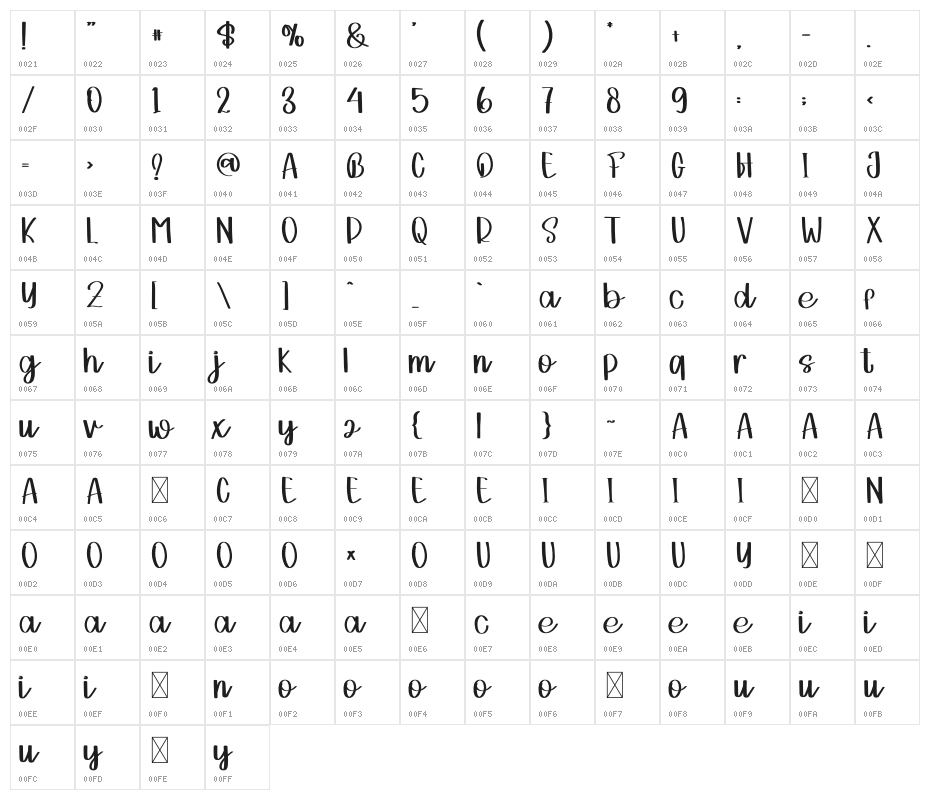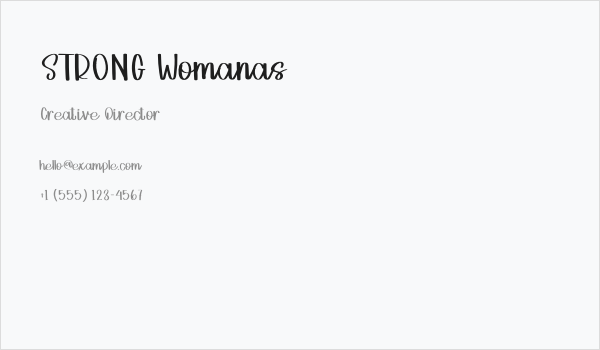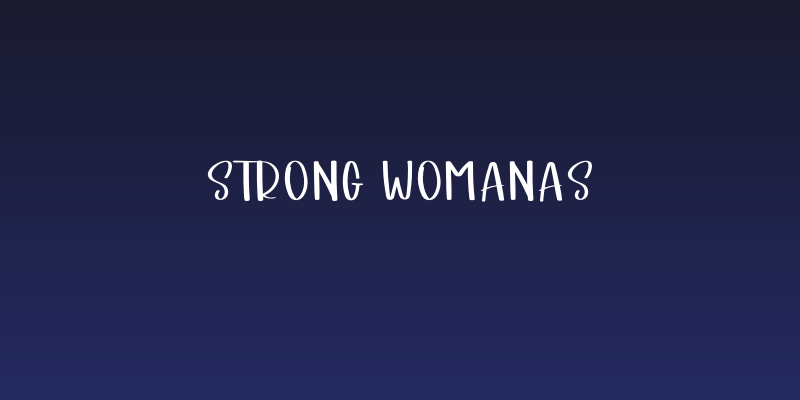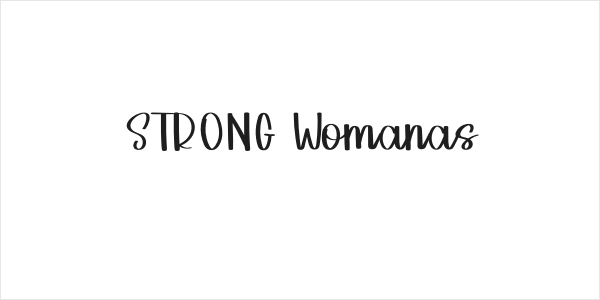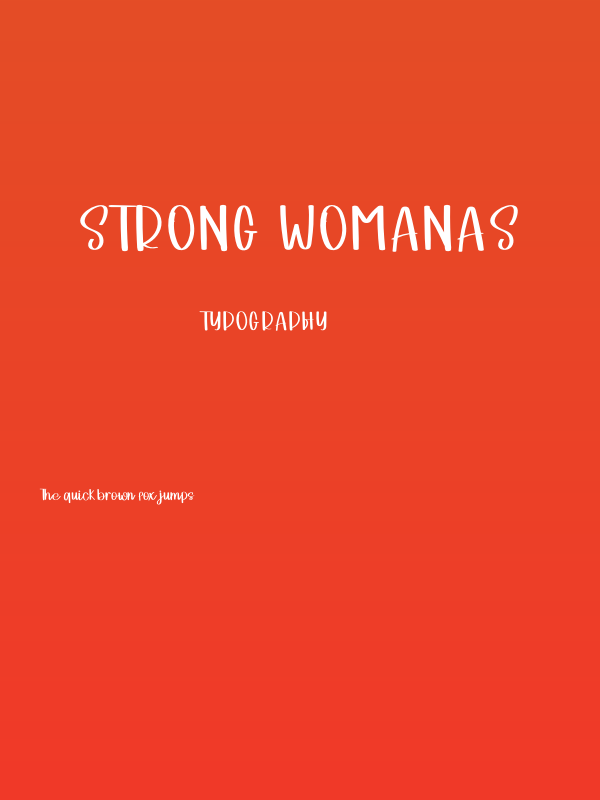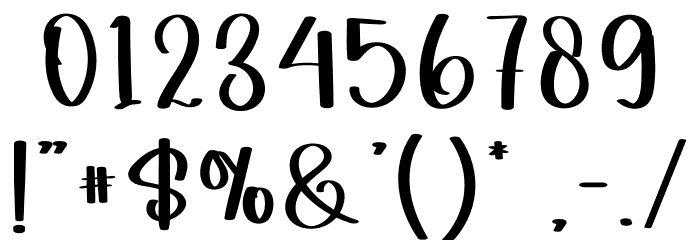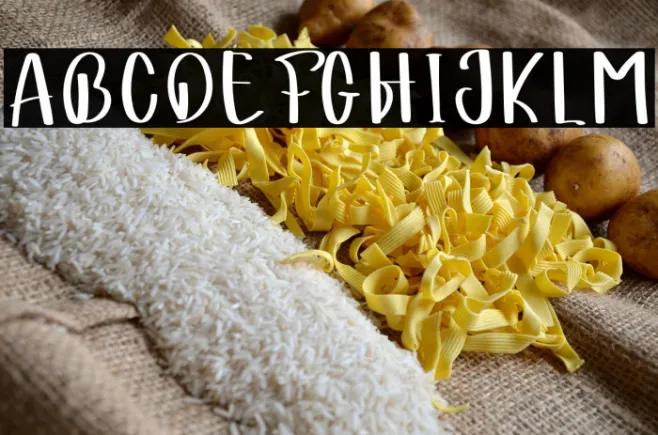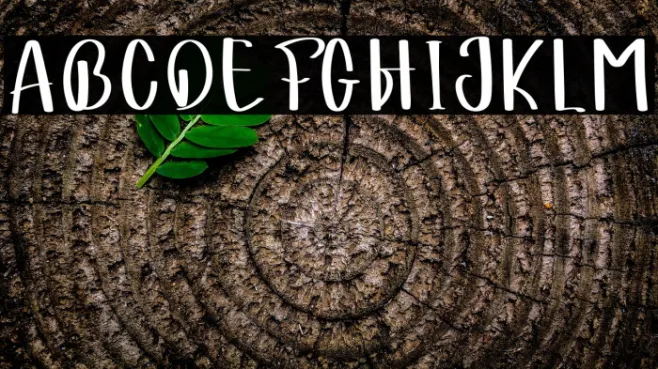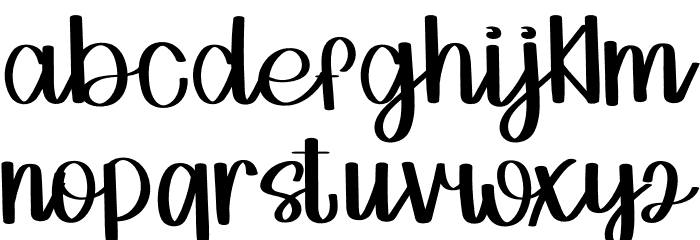
STRONG Womanas Font
STRONG Womanas Description
This font features a playful and energetic script style with a hand-drawn appearance. The uppercase letters are bold and slightly condensed, giving a strong presence, while the lowercase letters are more fluid and connected, adding a sense of movement and dynamism. The numbers and special characters maintain the same lively and bold characteristics, making them stand out. The overall design is modern and expressive, suitable for projects that require a personal and informal touch. The strokes are consistent in thickness, providing a medium contrast that enhances readability while maintaining a decorative flair.